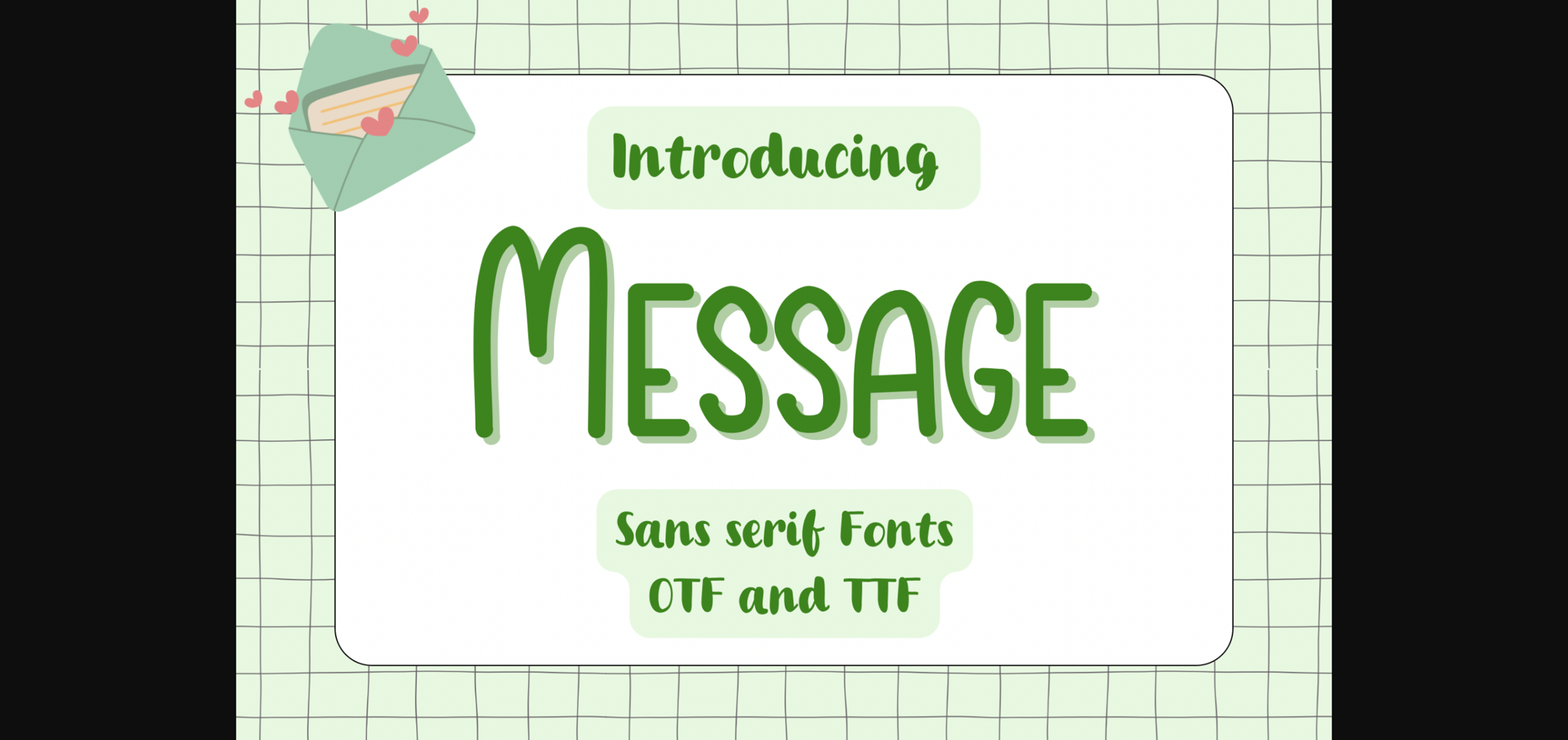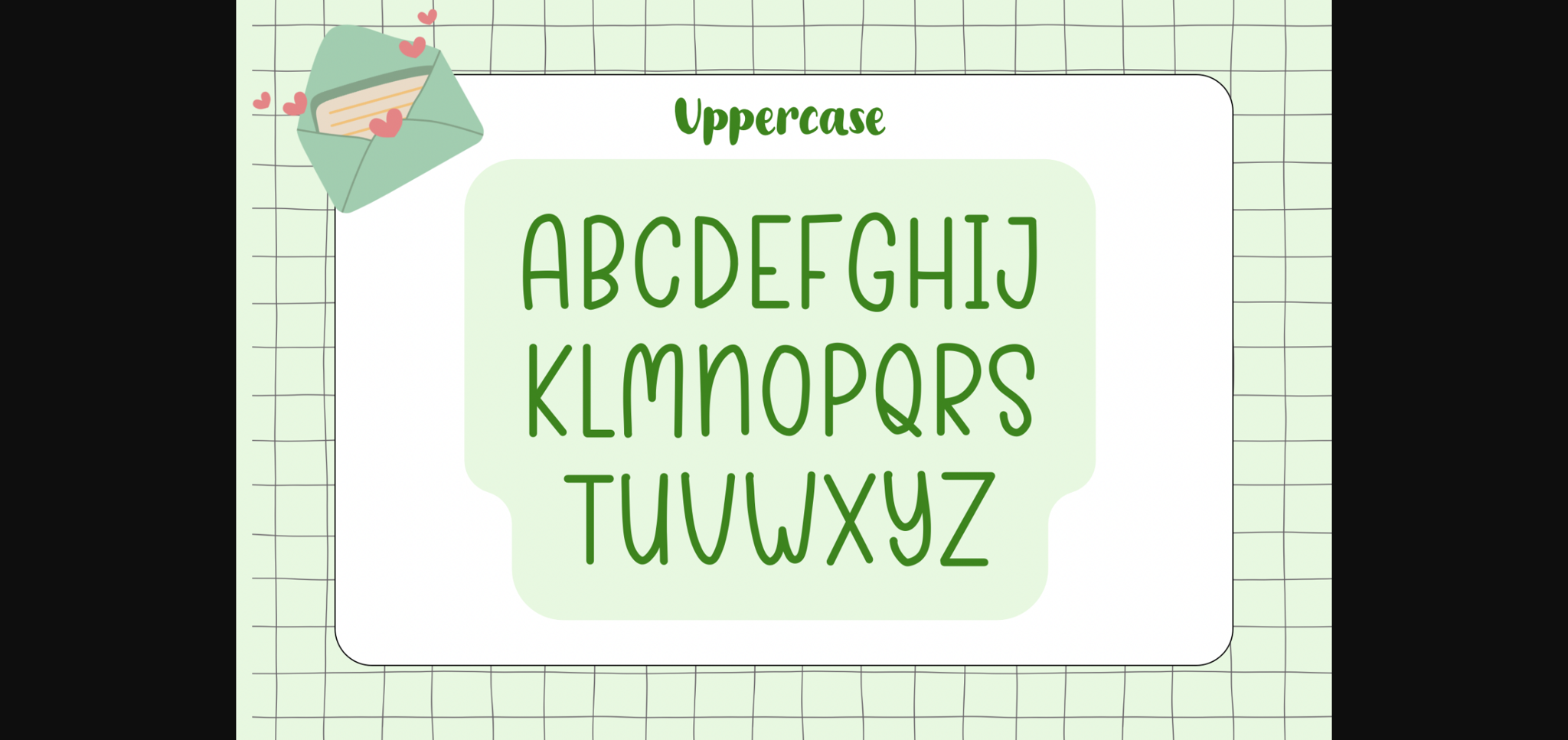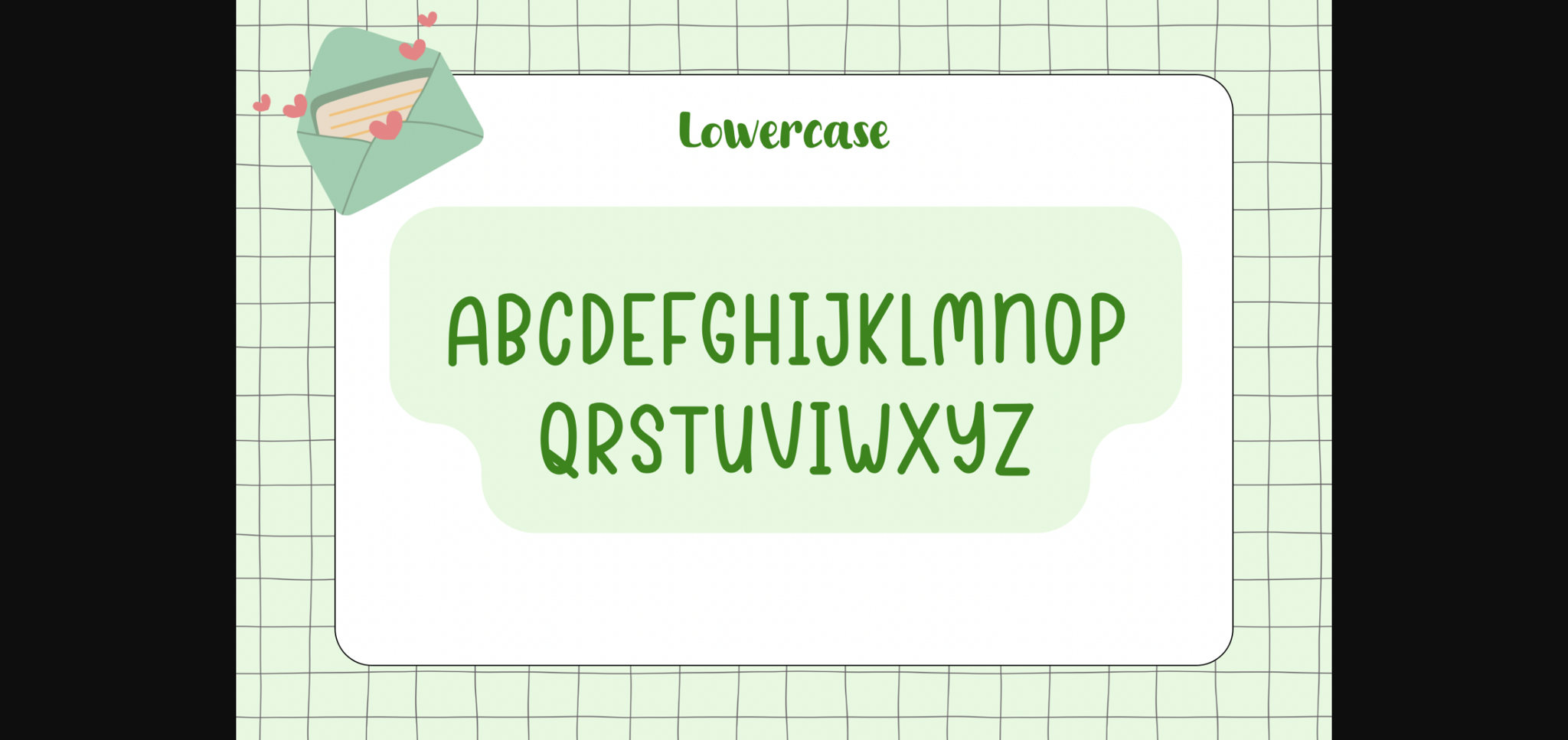
About Message Font
Message is a minimal and neat sans serif font. It can easily be matched to an incredibly large set of projects, so add it to your creative ideas and notice how it makes them stand out!